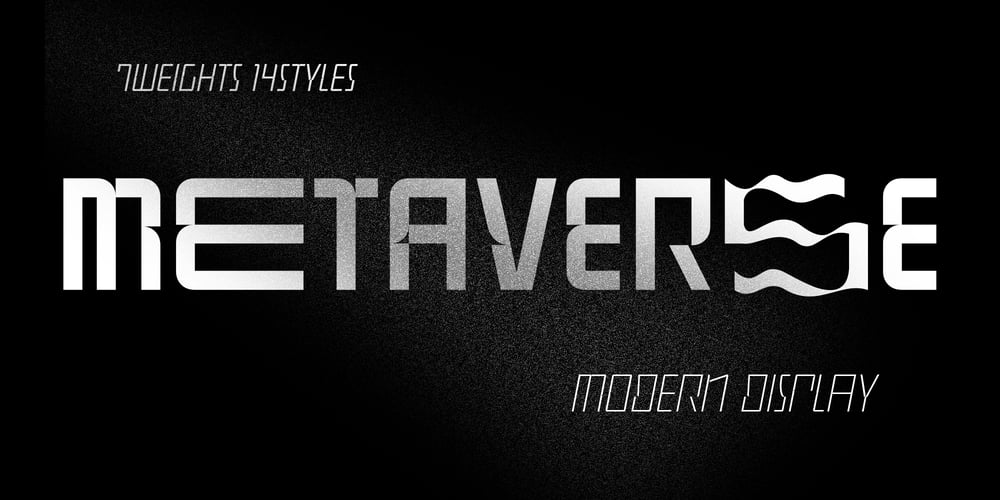
Metaverse Display Font Family was designed by Ryul Davidson and published by Brenners Template. Metaverse Display contains 14 styles and family package options. Metaverse Display Font FamilyThe basic skeleton structure of this font family is based on block-shaped rectangles and arcs. Therefore, it contains the possibility of being simple, but free of transformation. Alternates are designed to give individual glyphs a special transforming effect, and can be used as a means to emphasize contextual characteristics. 94 Alternates are included, and it is designed to maximize the characteristics of glyphs through defiant and irregular free deformation, not just width deformation. These Alternates can be used in most apps that support Opentype. It is included in Stylistic Set 1 and 2 for uppercase and Stylistic Set 3 and 4 for lowercase. The function of the App to switch on Alternates, refer to the Opentype provided by each App.